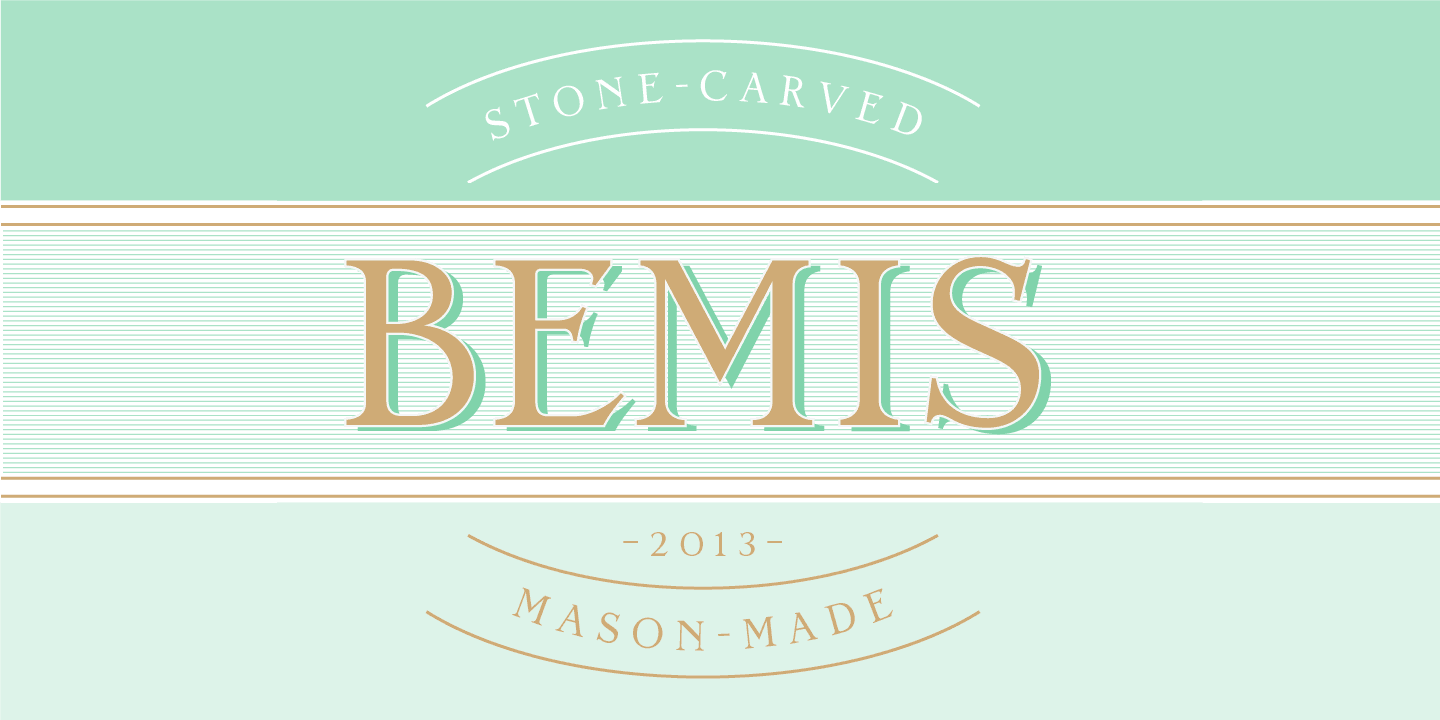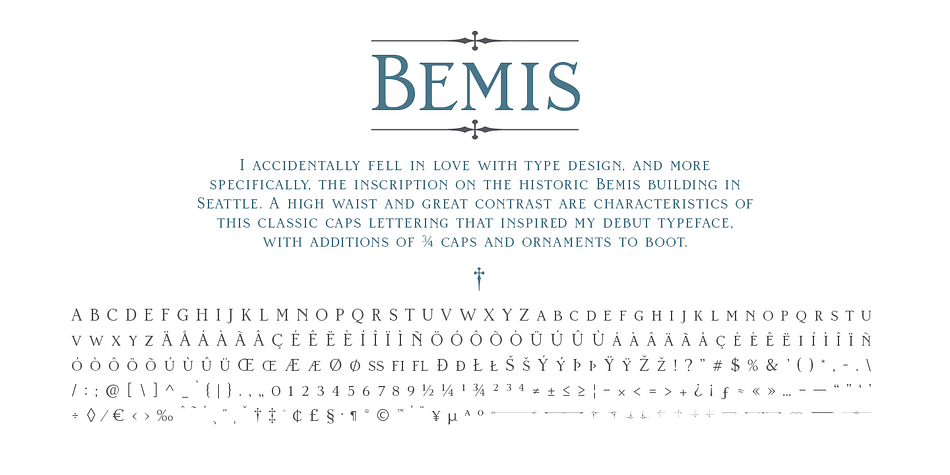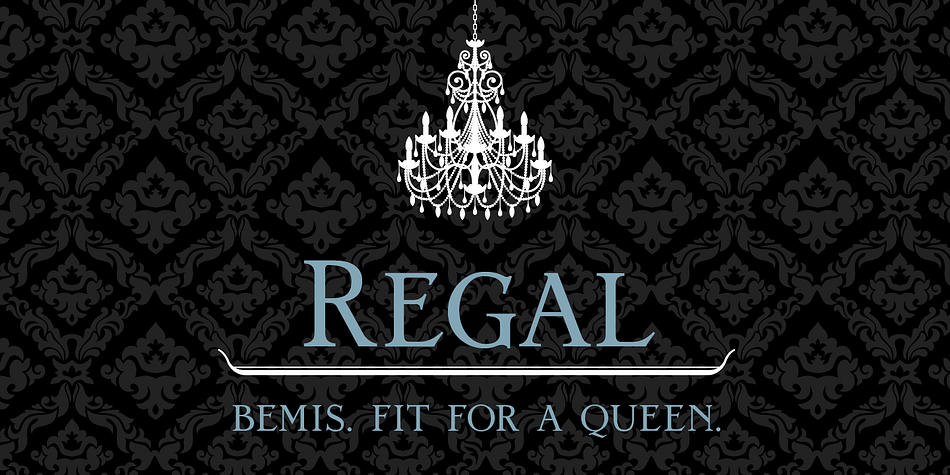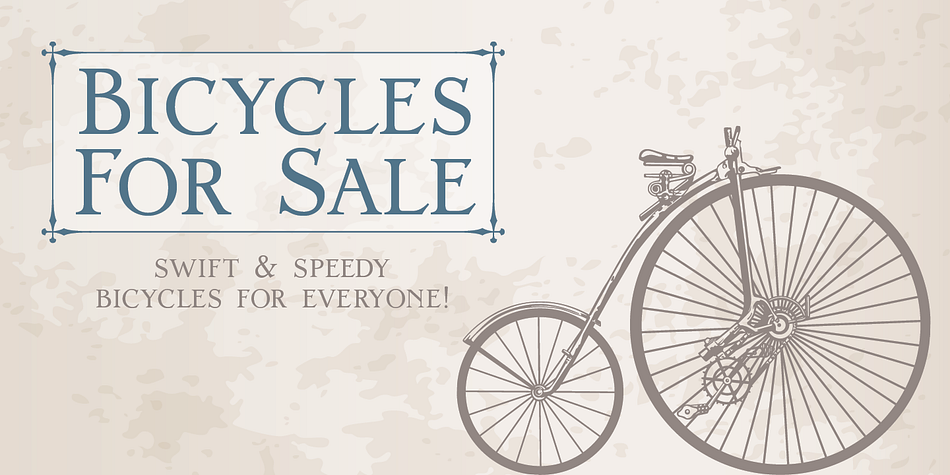
Designed by Andrea Leksen, Bemis is a display serif font published by Leksen Design.
I accidentally fell in love with type design, and more specifically, the inscription on the historic Bemis building in Seattle.
A high waist and great contrast are characteristics of this classic caps lettering that inspired my debut typeface, with additions of 3/4 caps and ornaments to boot.